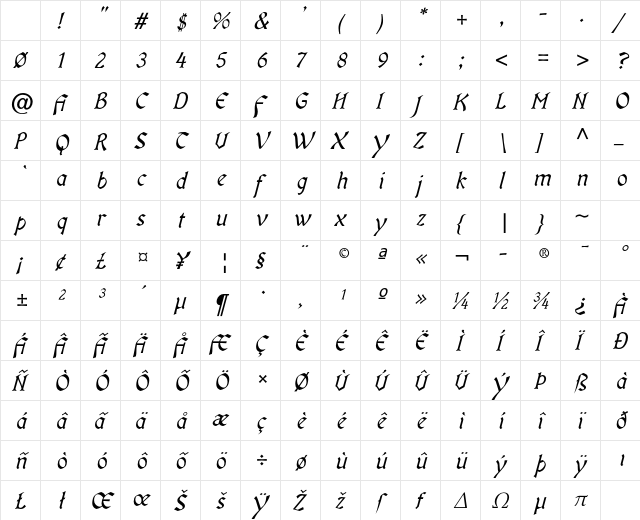
Oldania ADF Std is a composed and adaptable typeface that performs quietly and consistently across a wide range of design contexts. The slanted form adds forward momentum and visual energy.
Pro Tip: Use Oldania ADF Std for emphasis, pull quotes, and subheadings where its slanted energy can add rhythm to the layout.